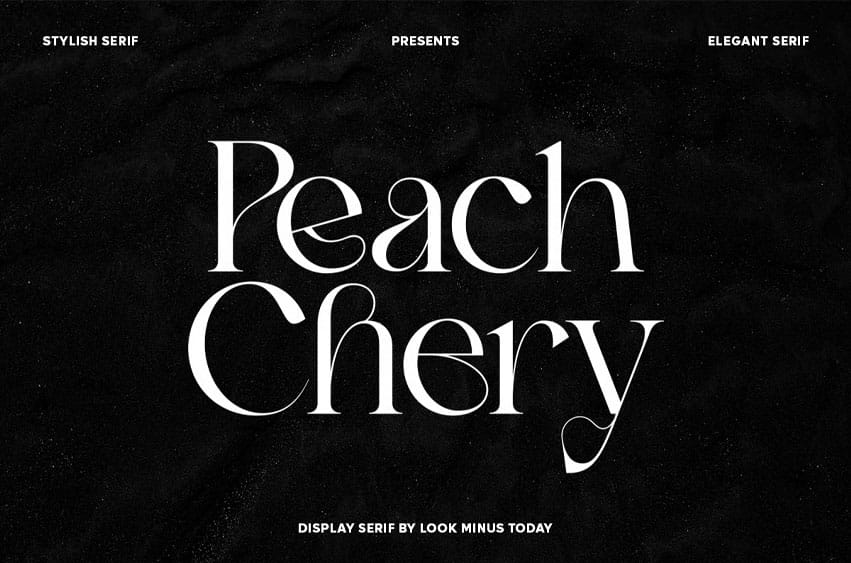
Peach Cherry Font is a display and elegant serif font that is perfect for adding a touch of sophistication to your designs. Its sleek and stylish look makes it suitable for a variety of applications, including branding, advertising, and editorial design.